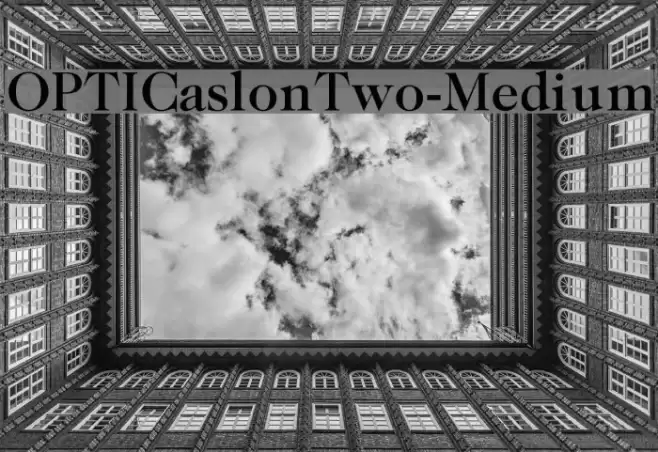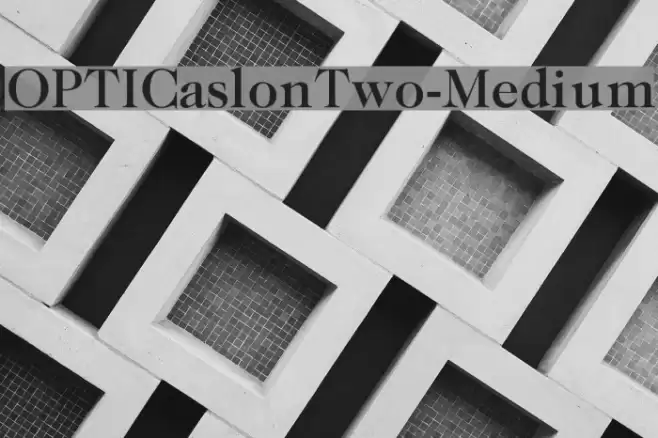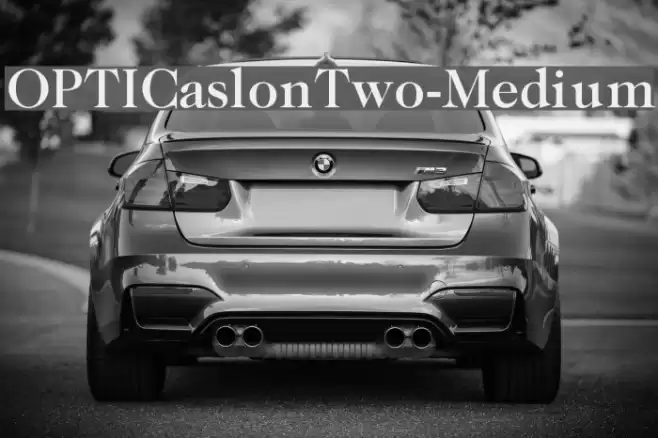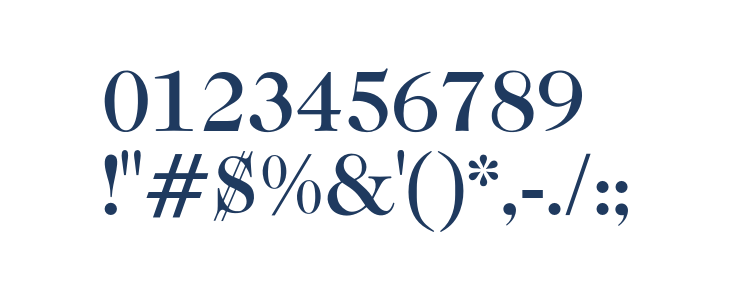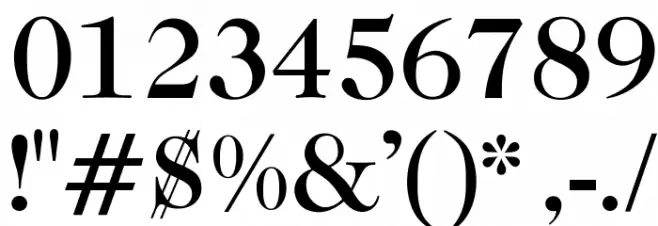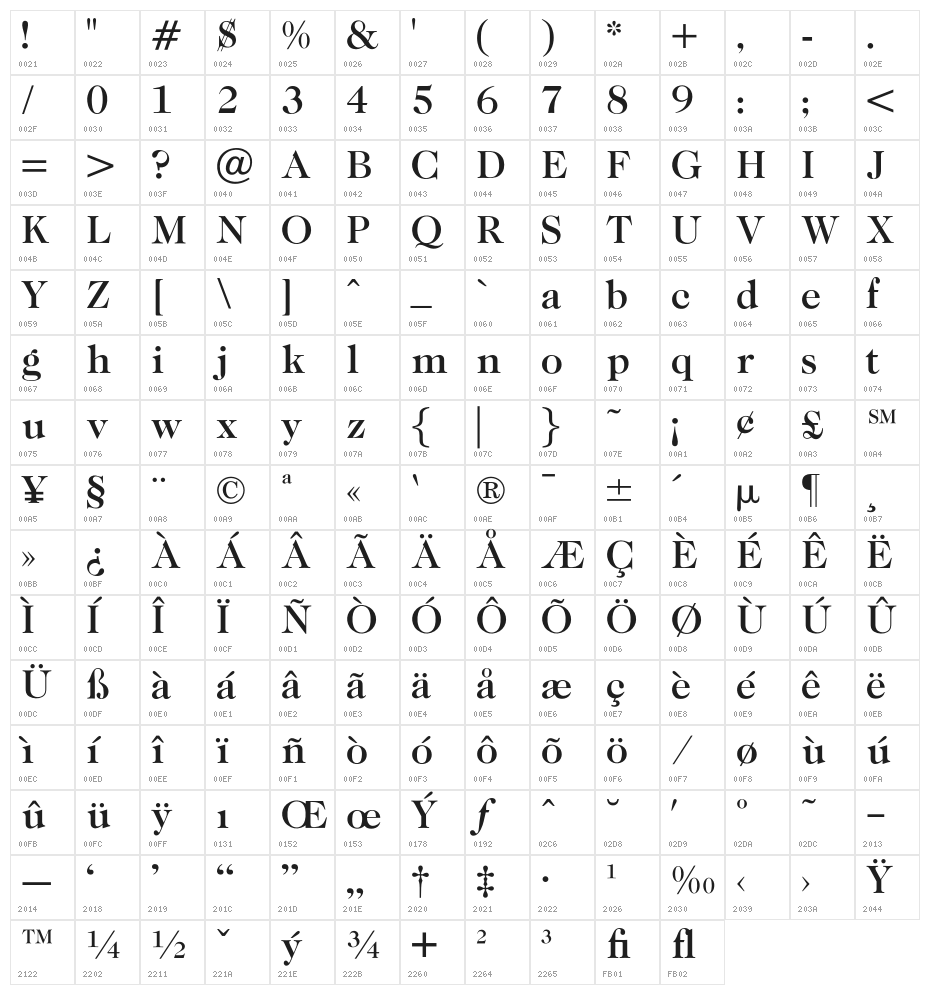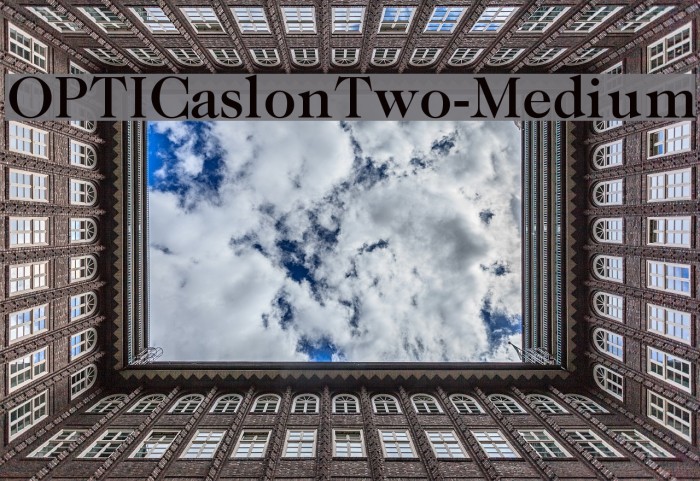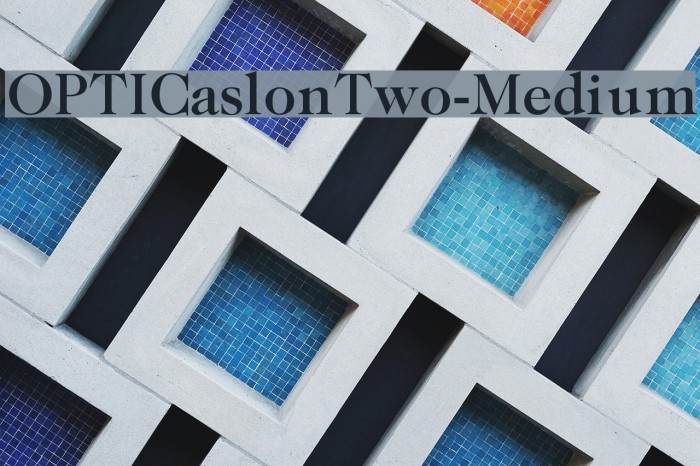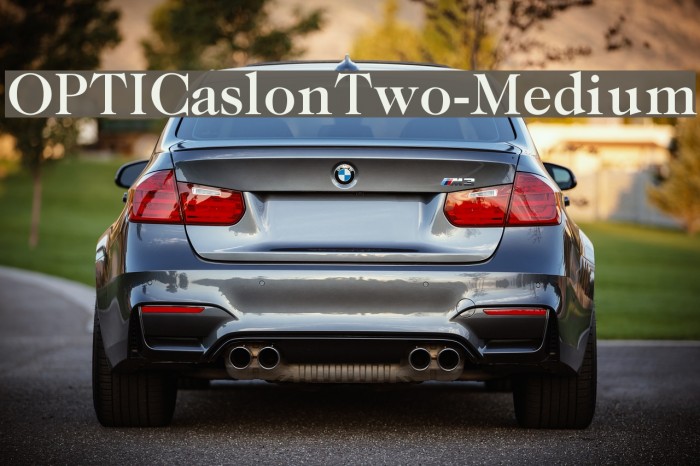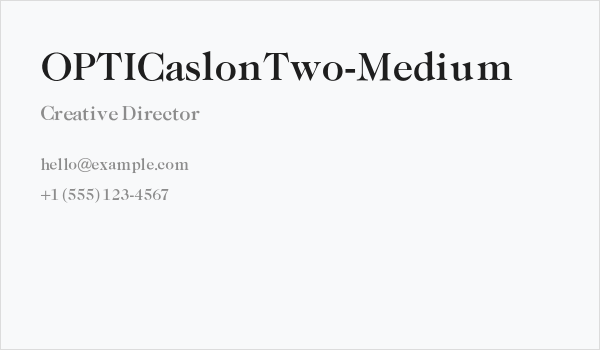
OPTICaslonTwo-Medium Font
OPTICaslonTwo-Medium Description
This font exhibits a classic serif style with elegant and refined strokes. The uppercase letters are bold and commanding, while the lowercase letters maintain a graceful flow. The numerals are well-proportioned, complementing the overall aesthetic. Special characters are distinct and maintain the font's sophisticated style. The font's design is rooted in traditional serif characteristics, offering a timeless appeal suitable for various applications.
A classic serif font with elegant strokes and a timeless appeal from Uncategorized fonts.
- Proposed Projects: Ideal for editorial design, book covers, formal invitations, and branding projects that require a touch of elegance.
- Overall Style: Classic